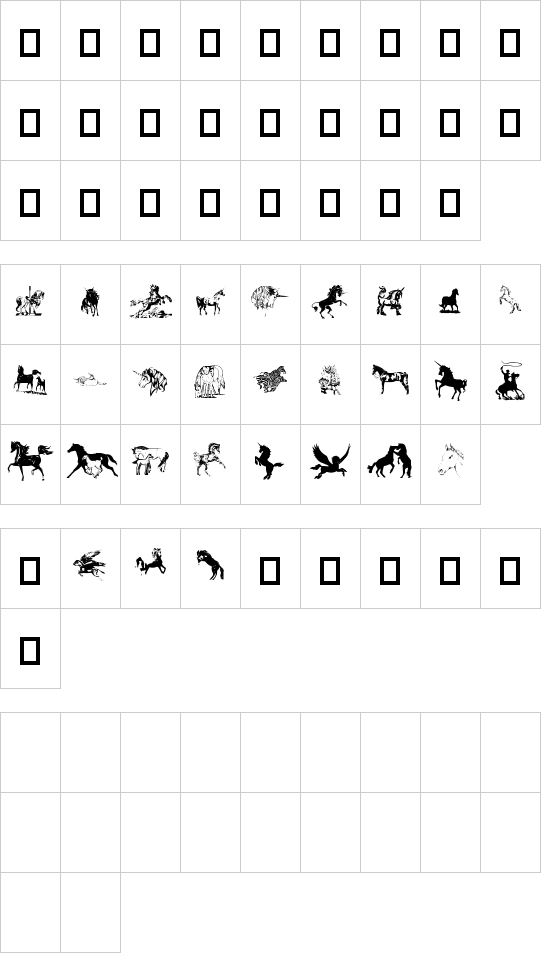
Equestrian by Darrian is an animal dingbat set built around horse and equestrian illustrations in place of letters. Each glyph is a finished decorative motif, drawn with a clean, illustrative hand, so every key delivers a ready horse or riding-themed graphic for your layout.
Use Equestrian by Darrian for stable and ranch branding, riding event flyers, themed stationery, and equestrian graphics where horse illustration fits. The font is free to download as a TrueType file, and the preview lets you type different letters to see which equestrian motif appears on each key.